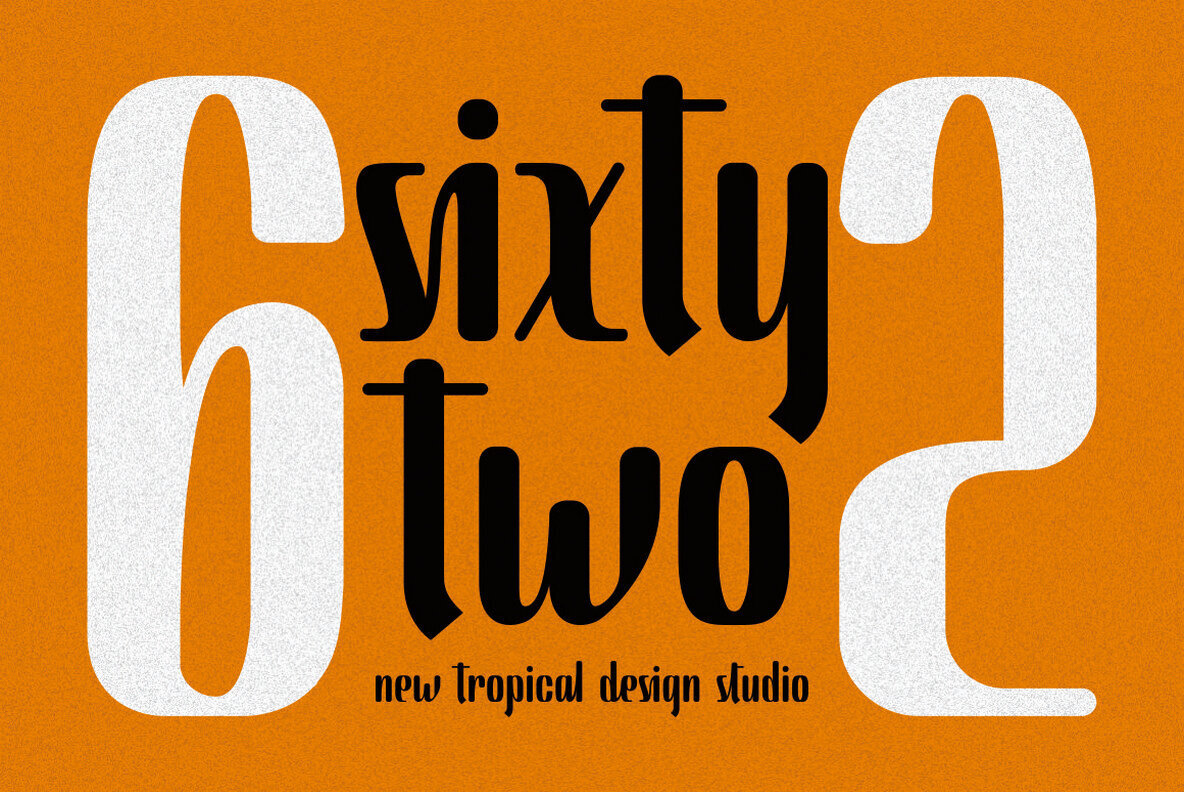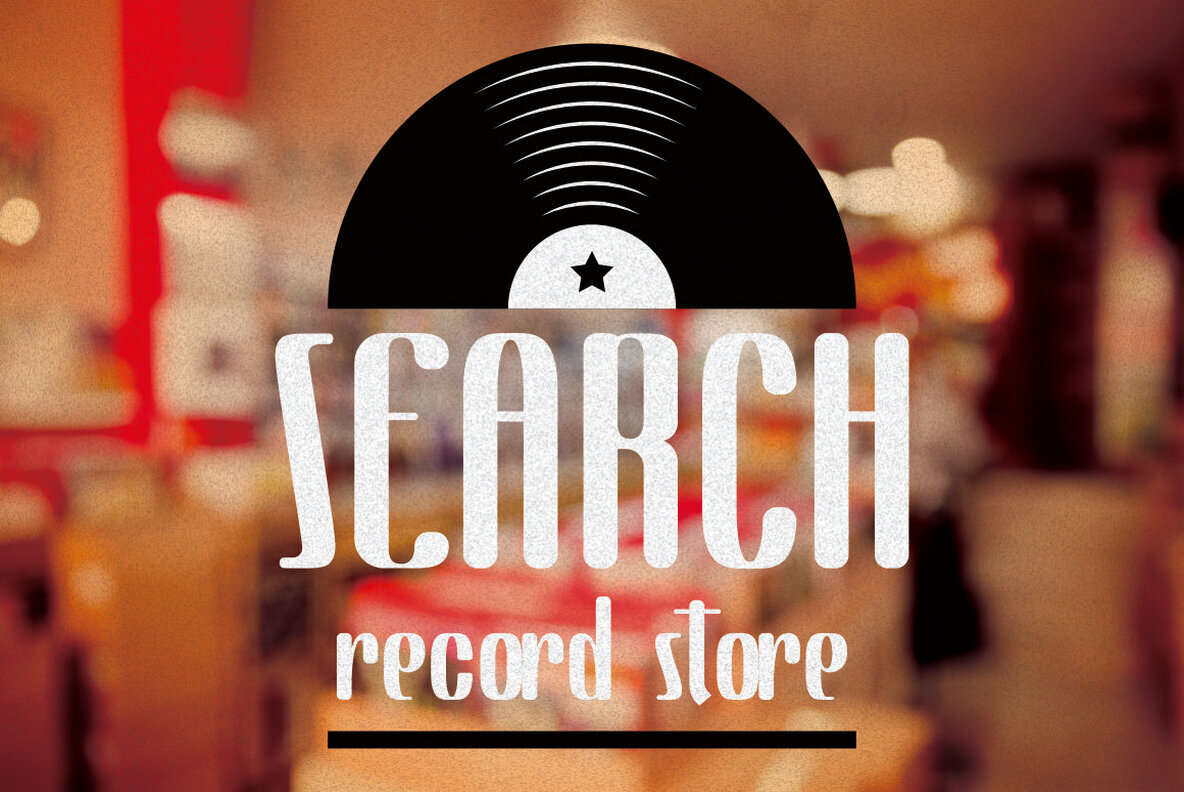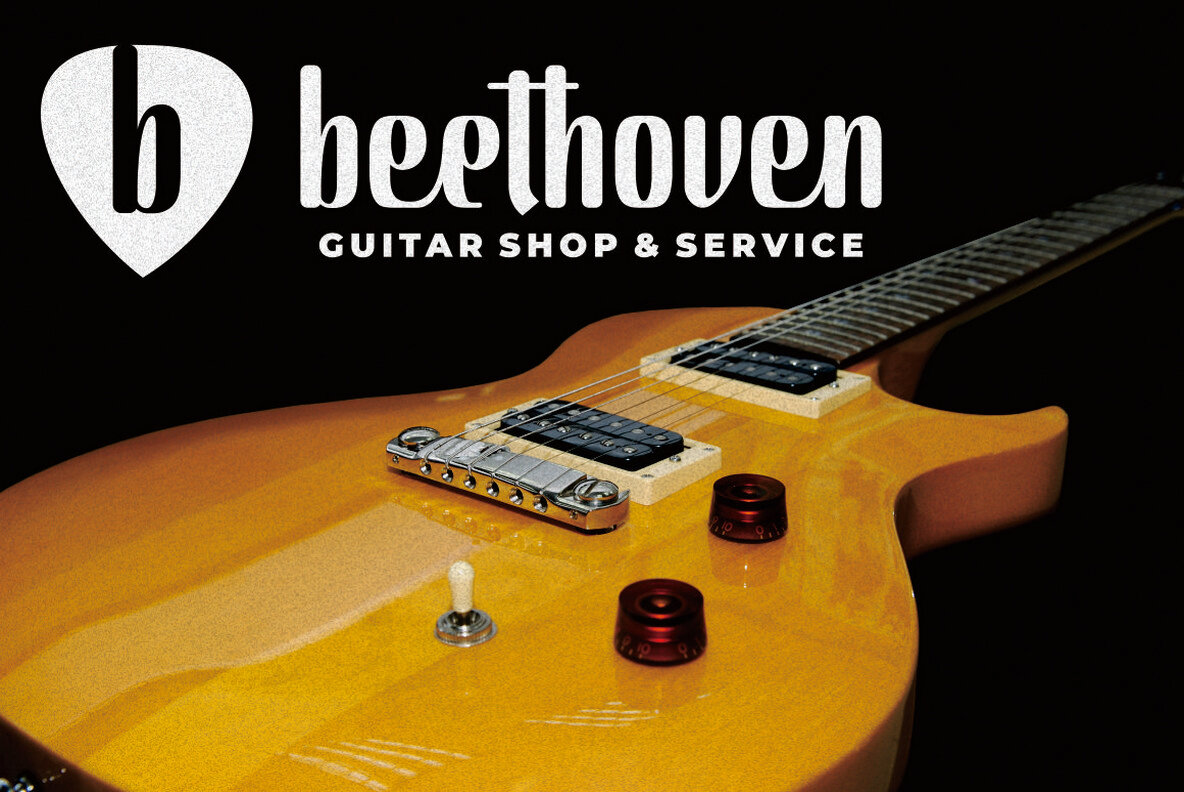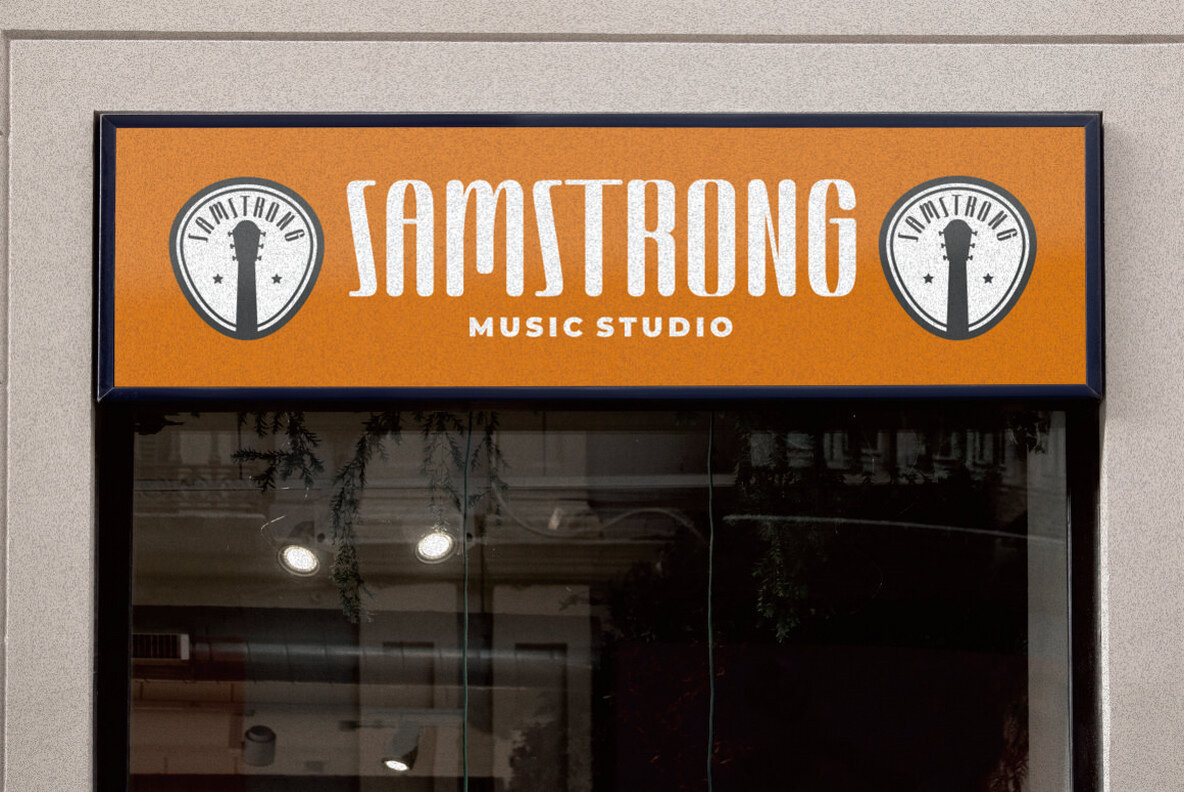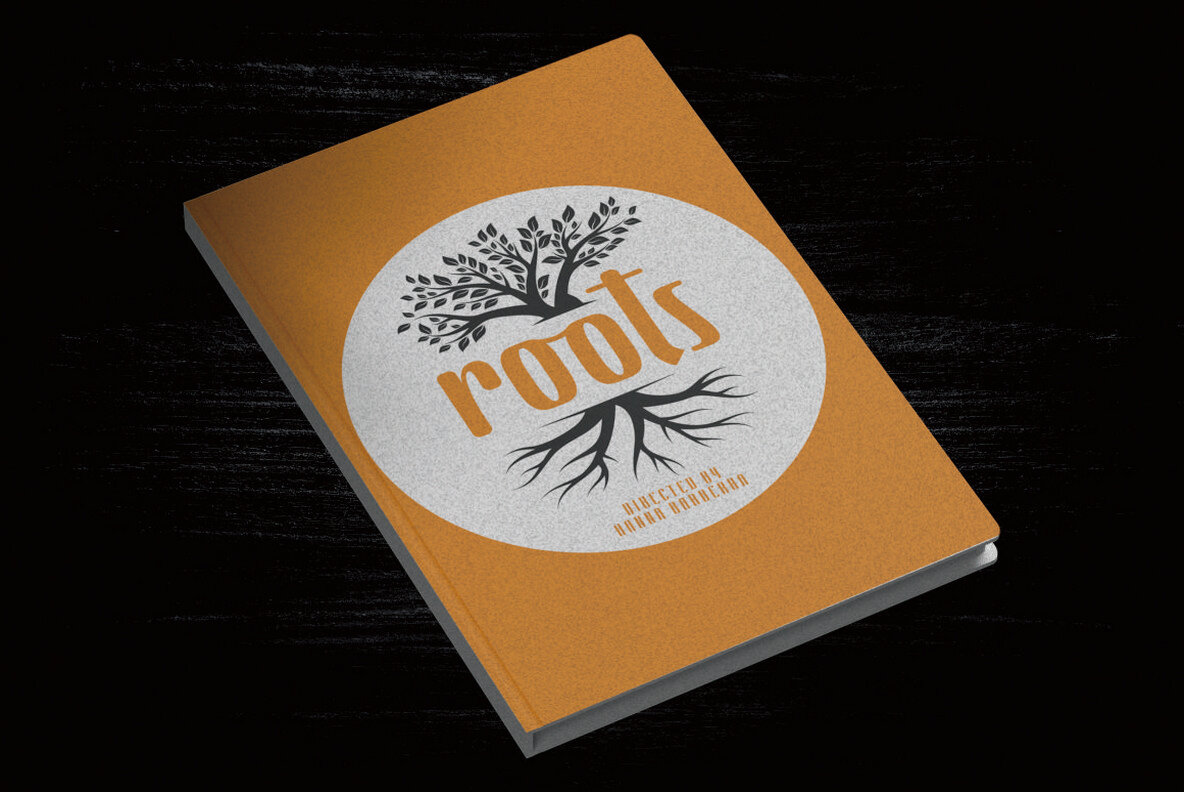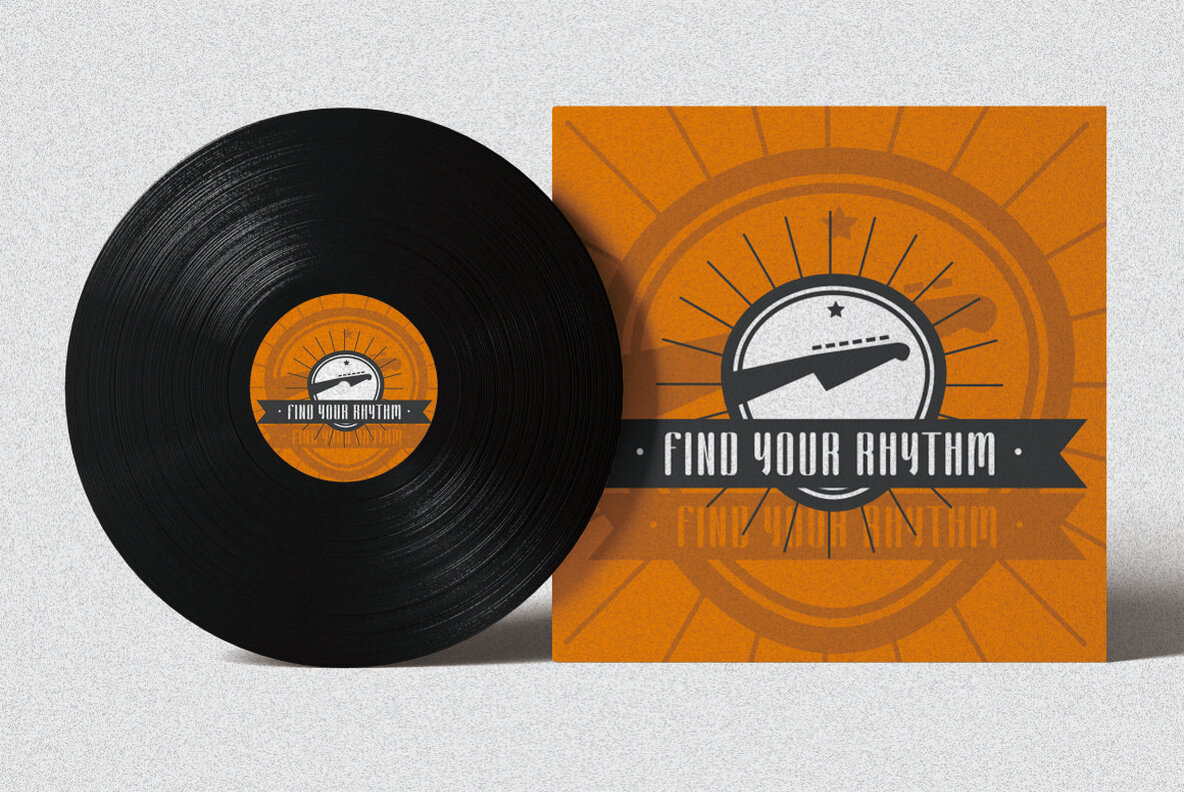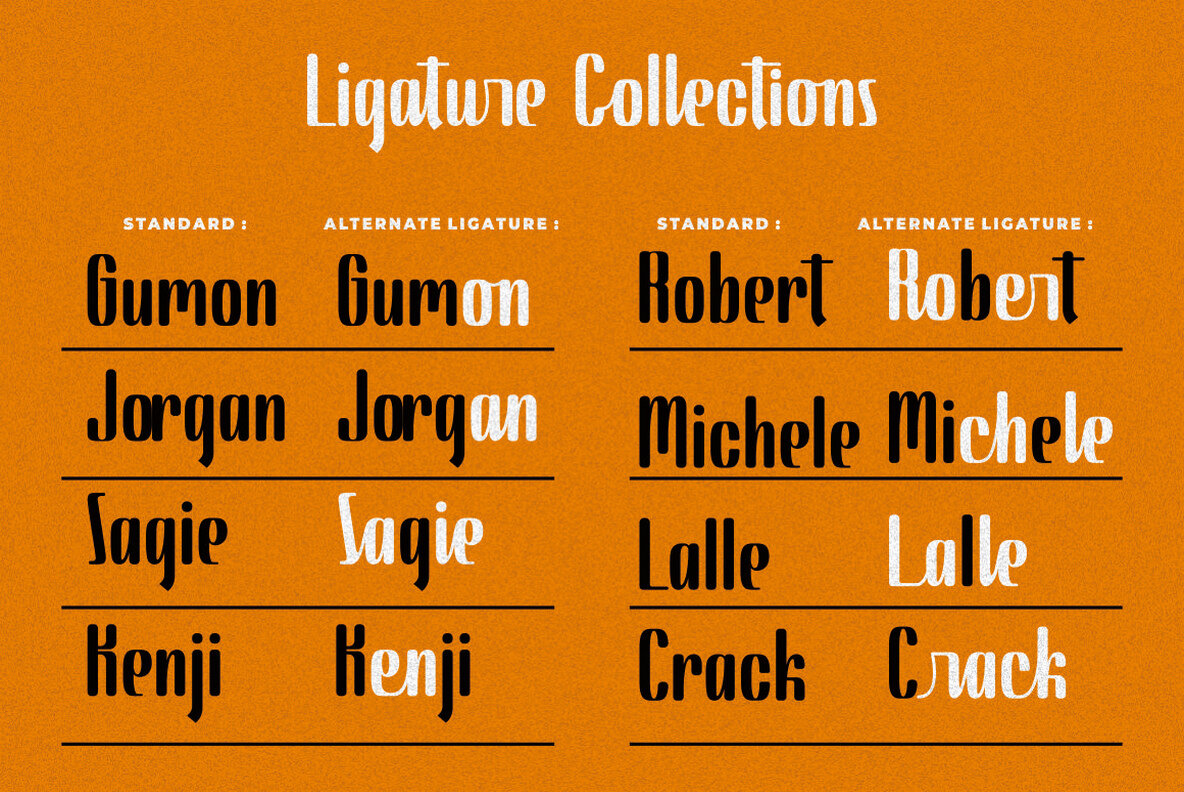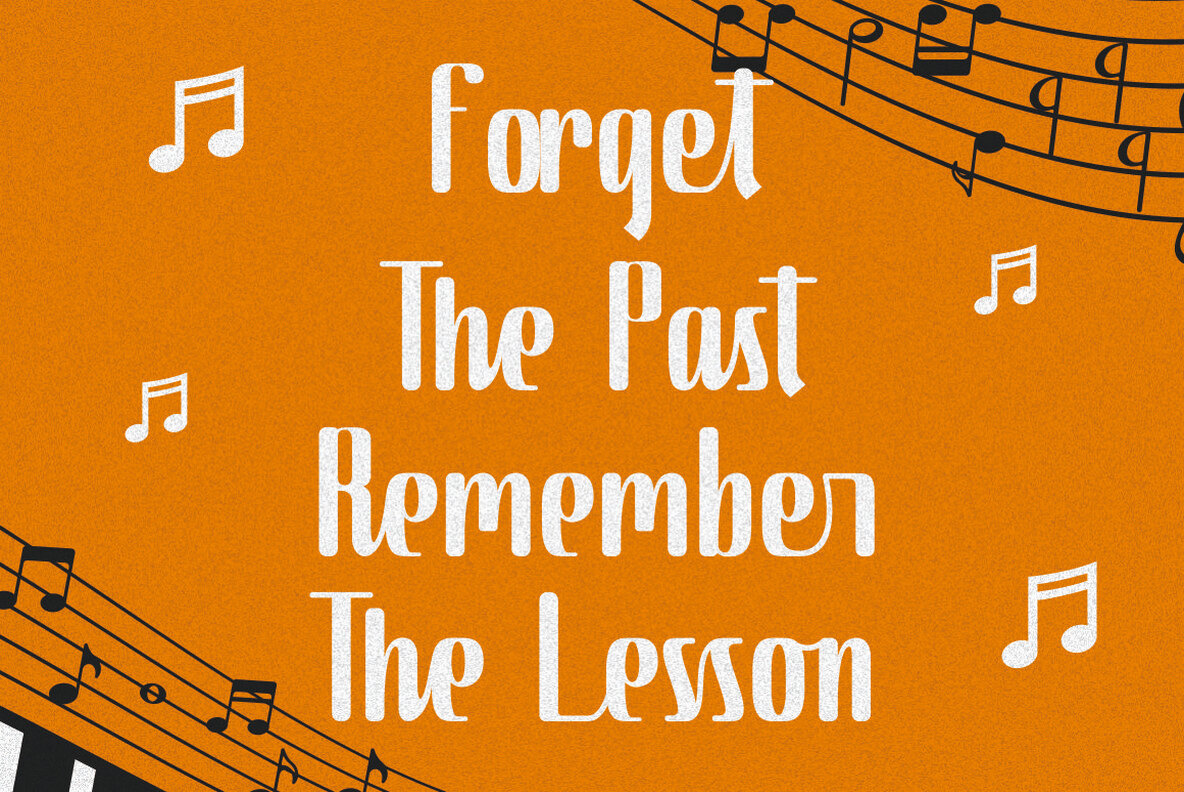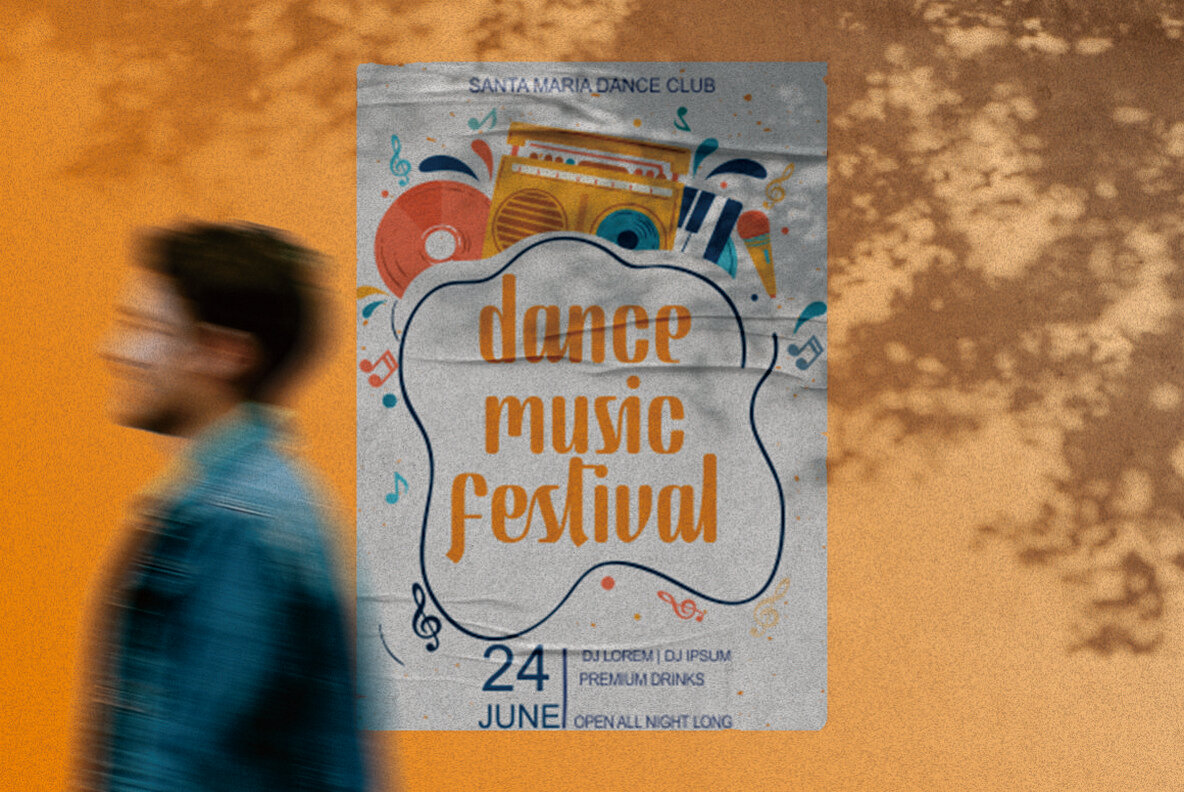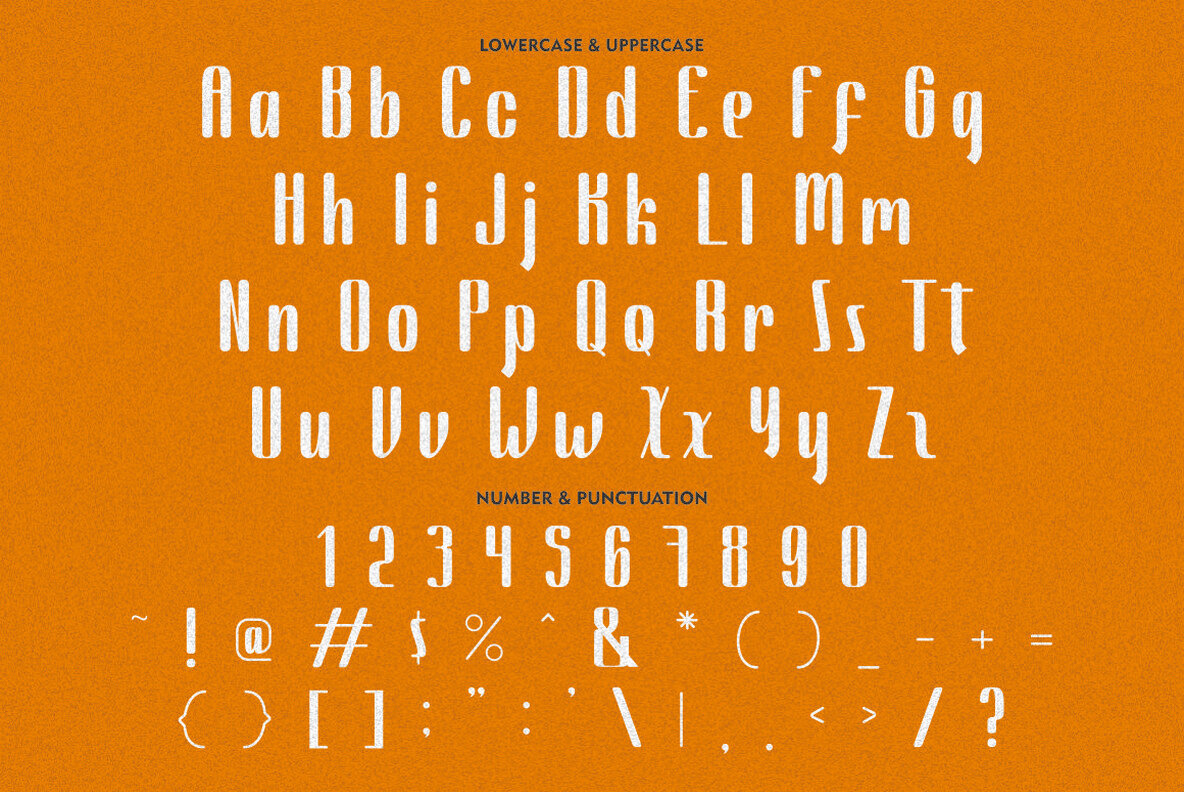
Classical Melody Font
Classical Melody Regular
Fusing vintage elegance with a touch of handcrafted allure, Classical Melody stands as a distinct choice for designers seeking a unique sans serif font. Its tall, slender form makes it ideally suited for home decor and display projects. Inspired by the harmonies of music design, Classical Melody is versatile enough to enrich various creative endeavors. It is an apt choice for storybooks, illustrations, and comic books, seamlessly transitioning into apparel, such as t-shirts and posters. Furthermore, its charm extends to crafting memorable greeting cards, logos, branding elements, and stickers. Sophisticated and functional, Classical Melody includes a broad range of OpenType features. It offers alternatives such as swash, stylistic sets, stylistic alternates, contextual alternates, and ligatures, accessible through OpenType-compatible software like Adobe Illustrator, InDesign, Photoshop, Corel Draw, and Microsoft Word. Multilingual support enhances its usability across diverse projects. Features:Classical Melody: A Vintage Display Font with Handcrafted Charm